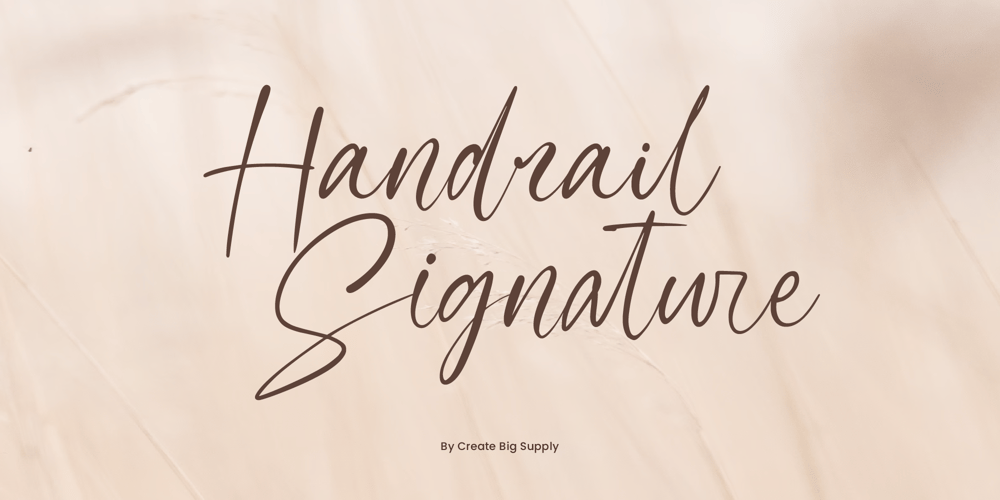
Handrail Signature Font Family was designed by Irpan Maulana and published by Create Big Supply. Handrail Signature contains 1 styles and family package options. Handrail Signature is a signature font with multiple ligatures which gives it a natural feel and looks like real handwriting. Be mesmerized by its beautiful style and use it to create beautiful wedding invitations, beautiful stationary art, eye-catching social media posts and more! This font is PUA encoded which means you can access all the amazing glyphs and ligatures easily Features: Uppercase & lowercase Numbers and punctuation Multilingual Ligatures PUA Encoding Full Character Set!”#$%&'()*+,-./0123456789:;<=>?@ABCDEFGHIJKLMNOPQRSTUVWXYZ[]^_`abcdefghijklmnopqrstuvwxyz{|}~¡¢£€¥Š§š©ª«®¯°±²³ž¹º»ŒœŸ¿ÀÂÃÄÅÆÇÈÉÊËÌÍÎÏÑÒÓÔÕÖרÙÛÜÝÞßàáâãäåæçèéêëìíîïñòóôõö÷øùúûüýþÿ¤¨´•†‹›‒–ˆˇ˜“‘˚”’ı